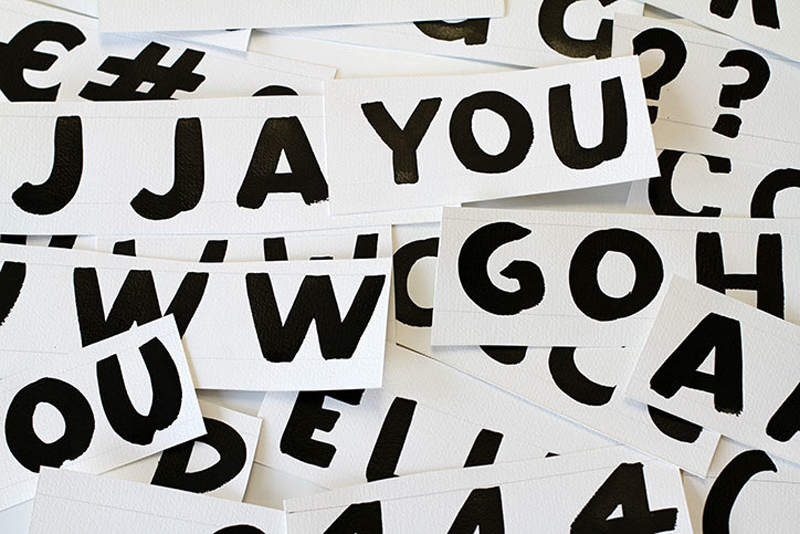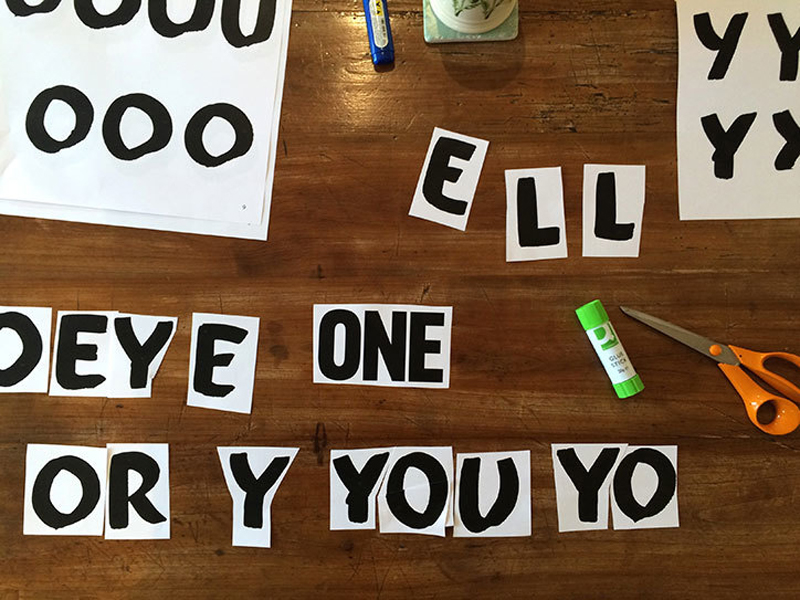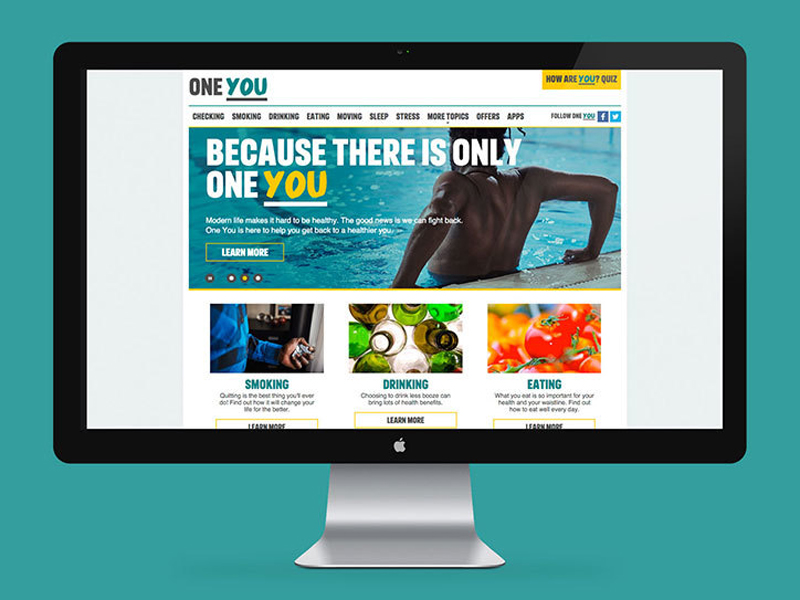
Font creation for one specific use seems to become more and more common. Recently, Fontsmith was commissionned by M&C Saatchi to create a typeface specifically for a campaign that targets men over 40 years old to help them improve their health. In short, the campaign recommended them to drink less, eat better, exercise more, and stop smoking.
The typeface, an all-caps script font, is designed to look more human and friendly-looking, something that should not feel too corporate or cold. It is used on all the campaign material, from posters to the website.